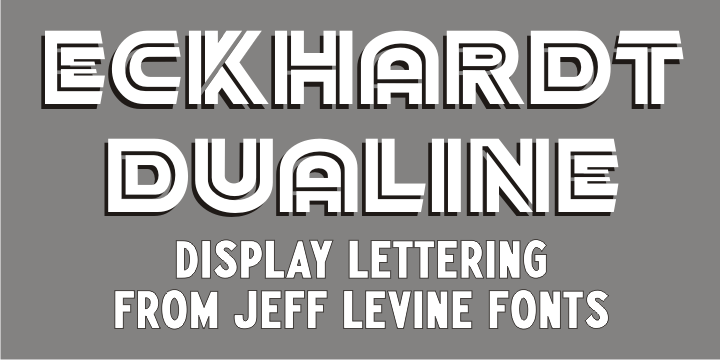
Eckhardt Dualine
While searching online for vintage type inspirations, an image was spotted of an old letterhead for a steel manufacturing company.
The hand lettering of the word 'Ludlum' only offered D,L,M and E as visual examples, but from this Jeff Levine has designed Eckhardt Dualine JNL – a Deco-flavored dual-line type font.
As with a number of other releases that emulate hand-lettering or sign painting, Jeff has named this font in honor of his good friend – the late Albert Eckhardt, Jr.; who ran Allied Signs in Miami from 1959 until his passing.